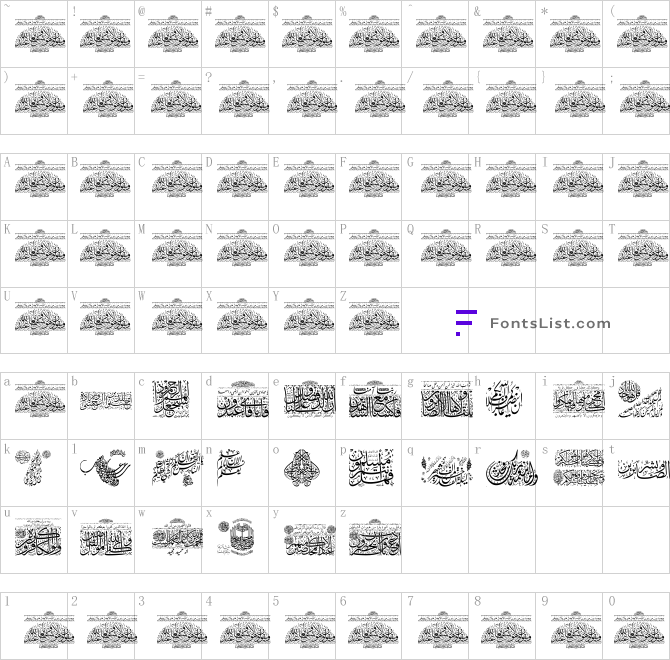
- Font Name:Aayat Quraan_041
Aayat-Quraan_041.ttf is a very beautiful artistic font, Aayat-Quraan_041.ttf is widely used in the design and printing of various books and pictures,Aayat-Quraan_041.ttf has a strong visual impact,Aayat-Quraan_041.ttf is a commonly used font in newspapers, magazines and books, and is used in posters, e-commerce Poster design, store design, logo design, font design and other fields.Aayat-Quraan_041.